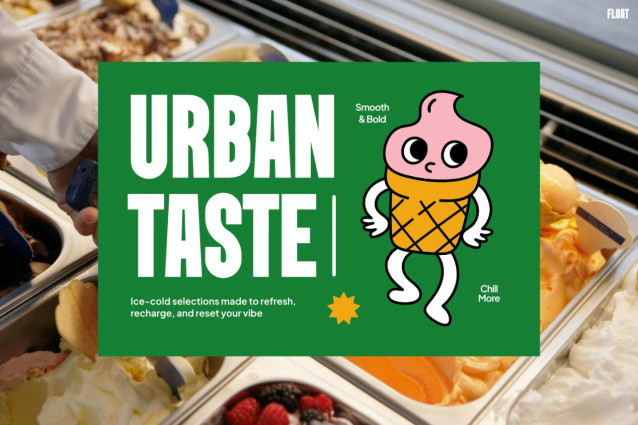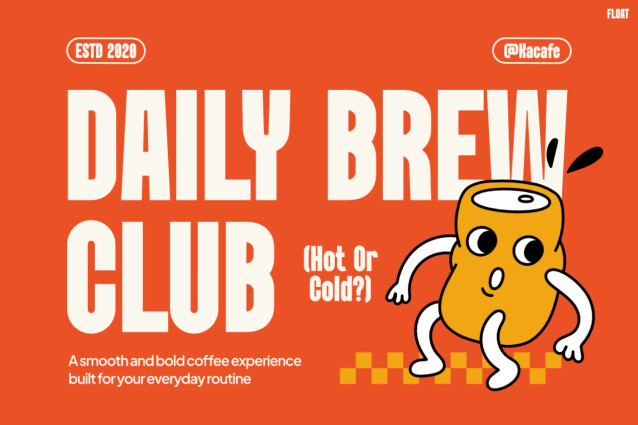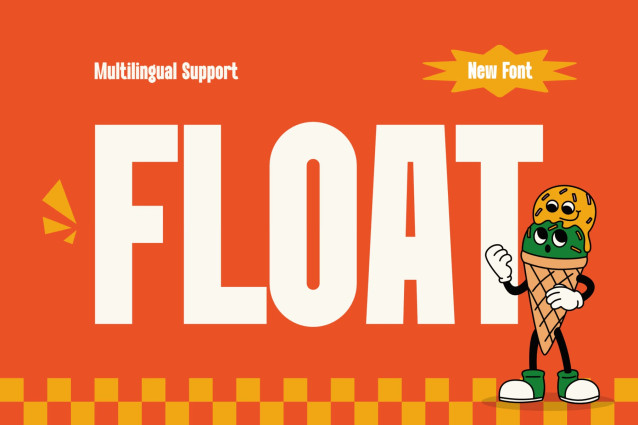
Float Font
Modern Font FLOAT is a bold and energetic display typeface designed to make your designs stand out instantly. At first glance, its tall, condensed letterforms and strong geometric structure create a powerful visual impact. Moreover, the clean edges combined with playful proportions give it a modern yet fun personality. Because of its bold presence, every word feels confident, dynamic, and attention-grabbing